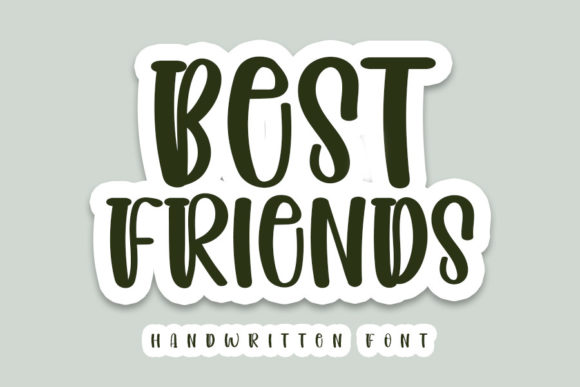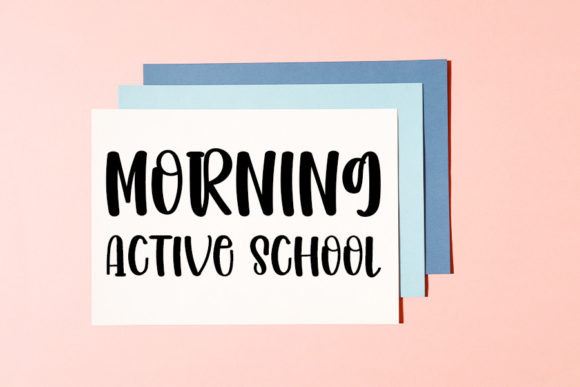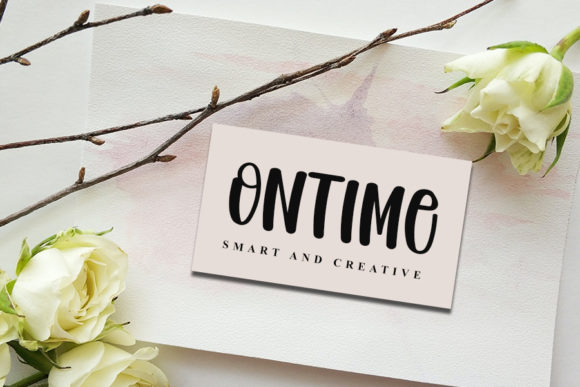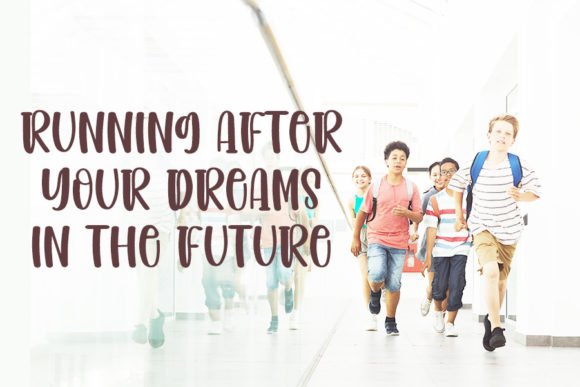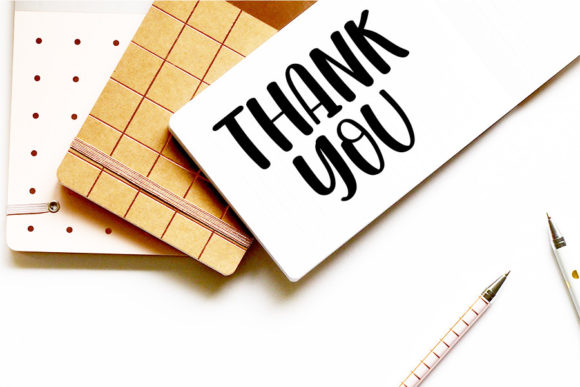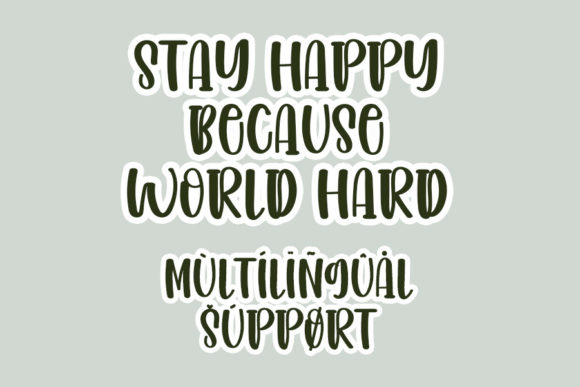
Best Friends Font
About Best Friends Font
Best Friends is a stylish and smart looking handwritten font. Every letter has a unique and beautiful touch, which will make your design come alive!